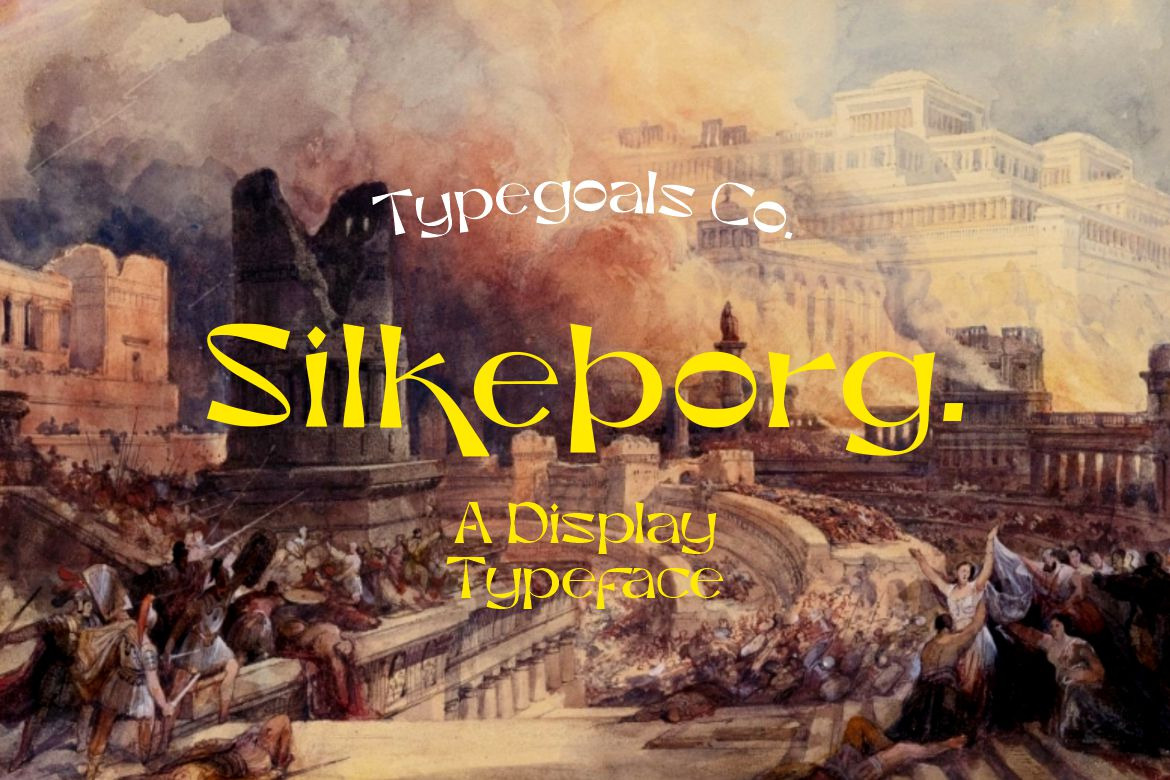
Silkeborg Display Font
Silkeborg is a stylish font It has both modern and retro look - clear, modern and fun. Perfect if you need a dose of fun in your project.